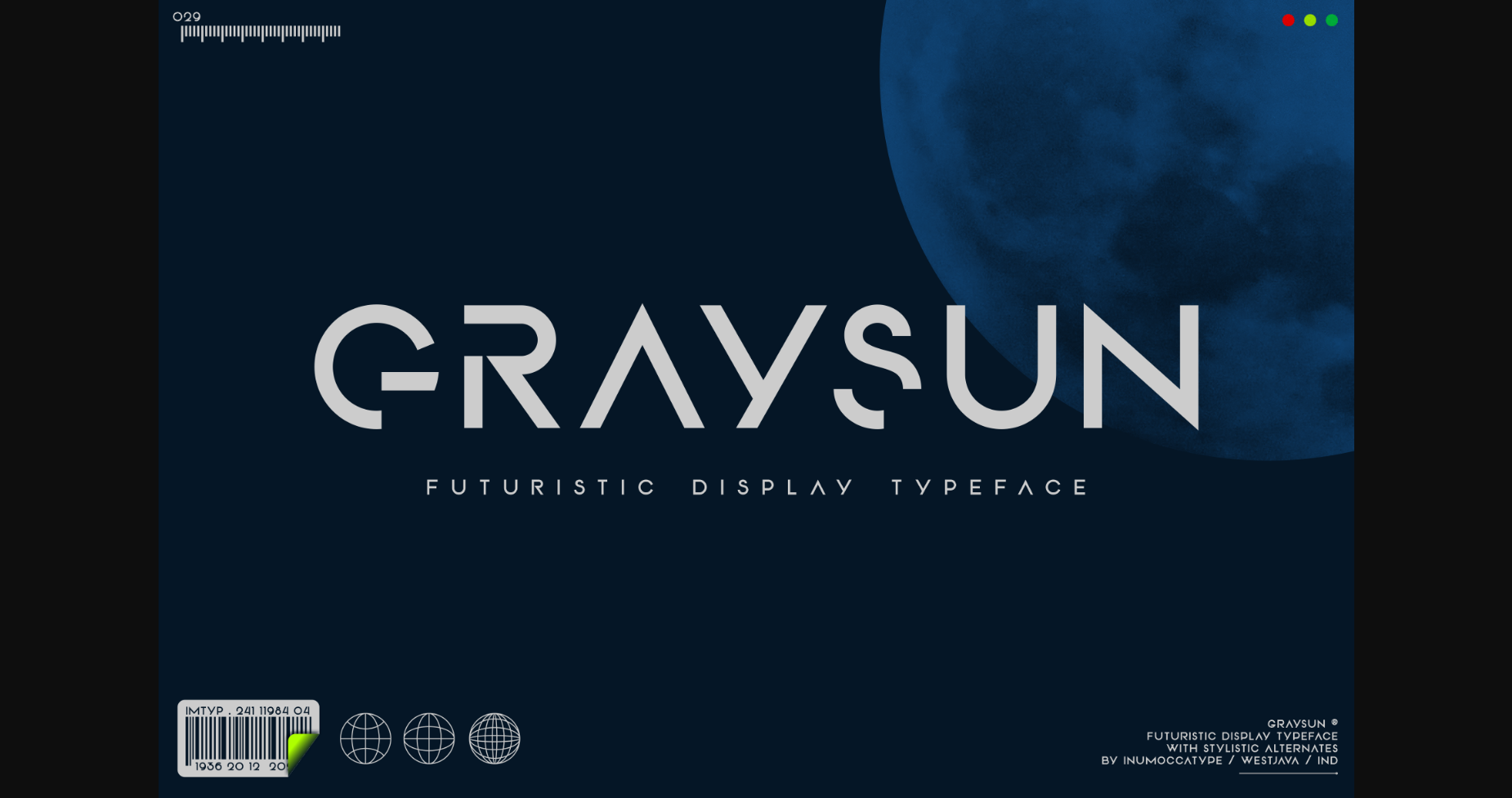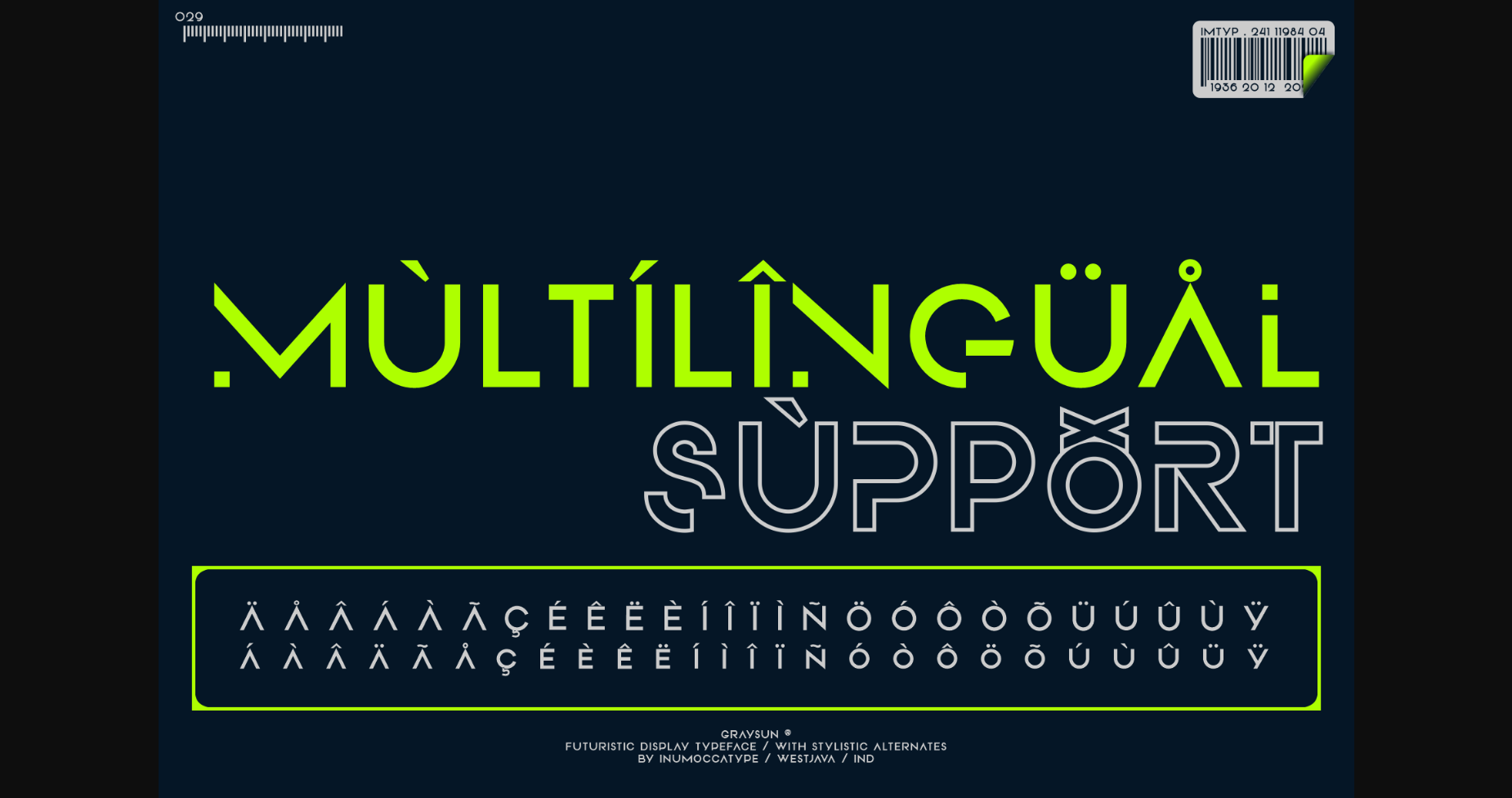
About Graysun Font
GraySun is a futuristic sans-serif font with a strong character and engaging looks. Use it in modern technology projects, sci-fi movie posters, science and space-themed designs, covers, website interface, branding, and more.